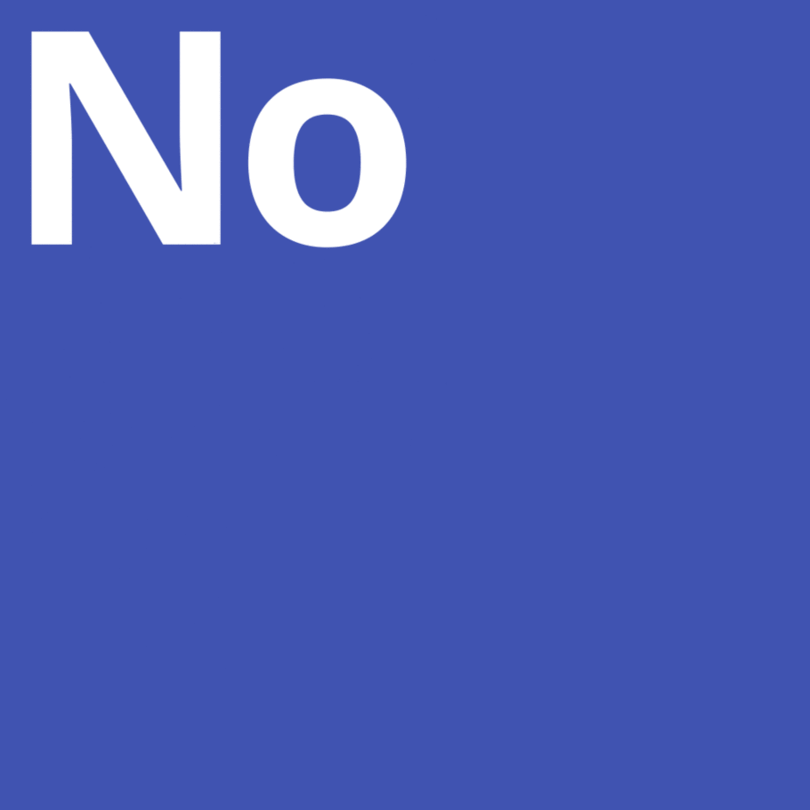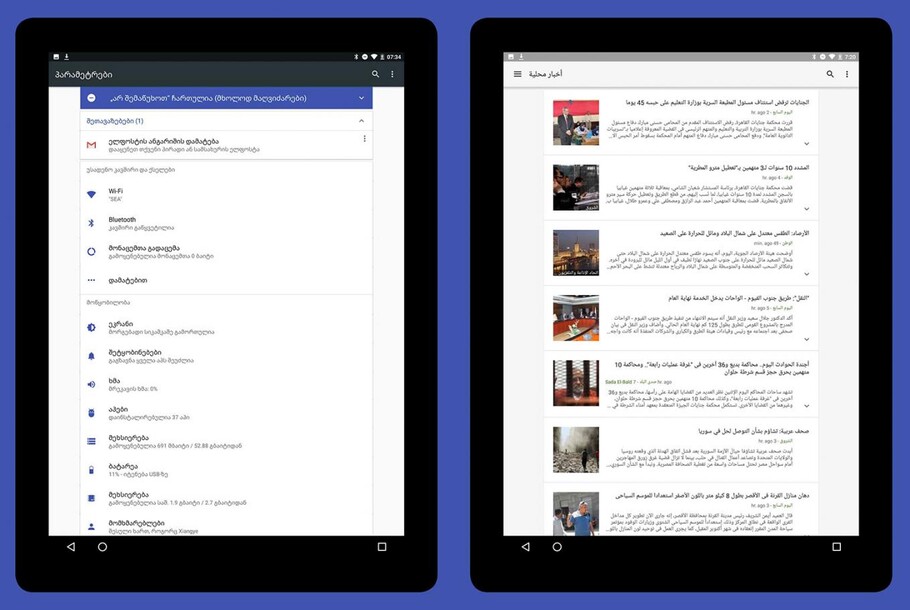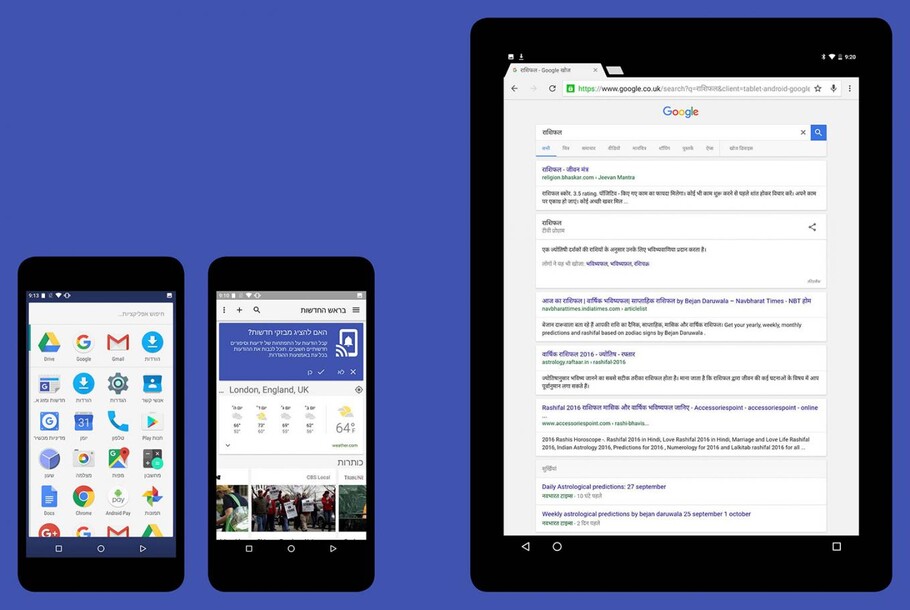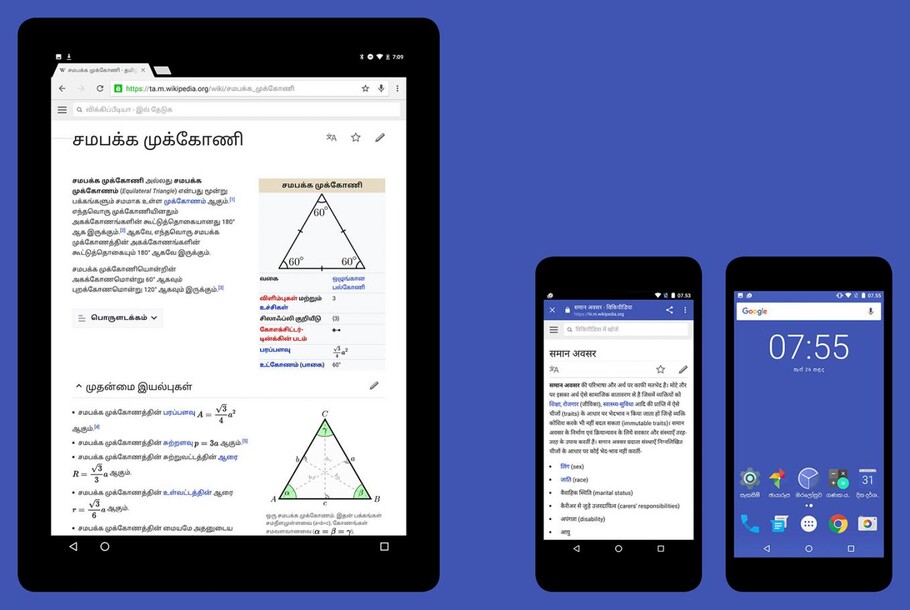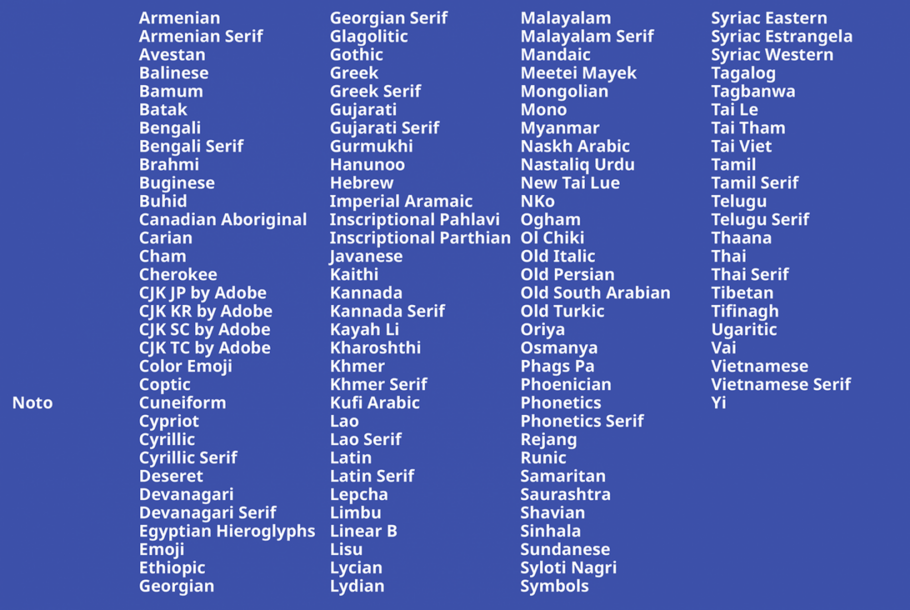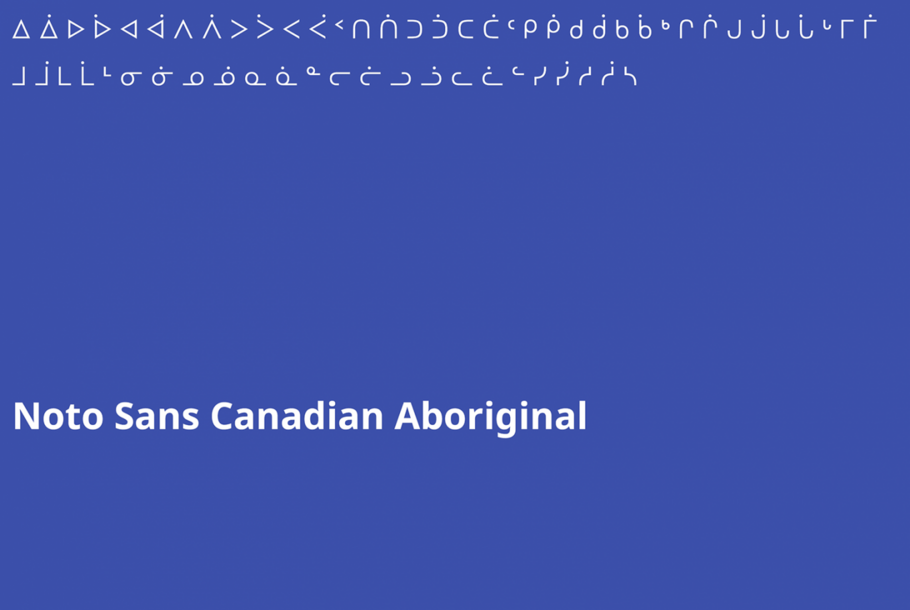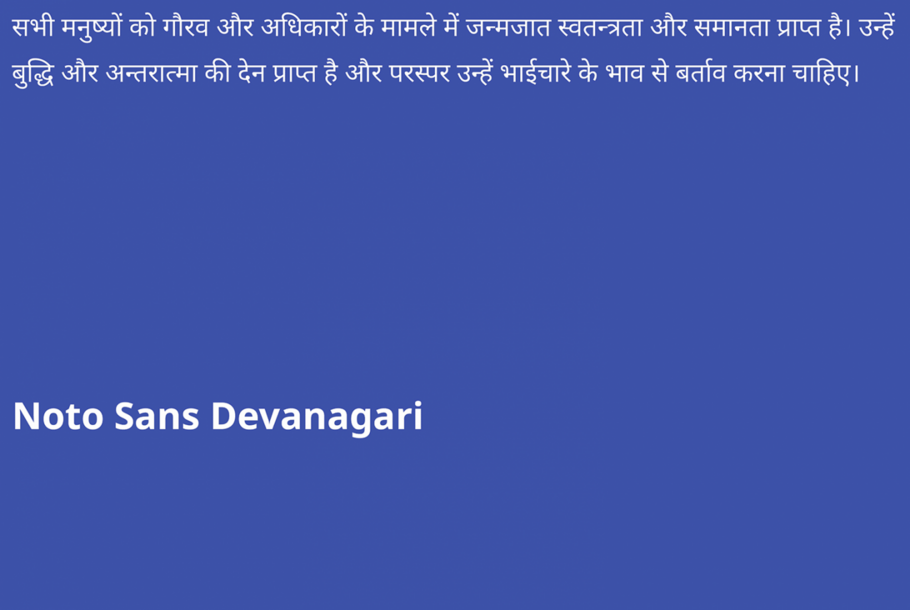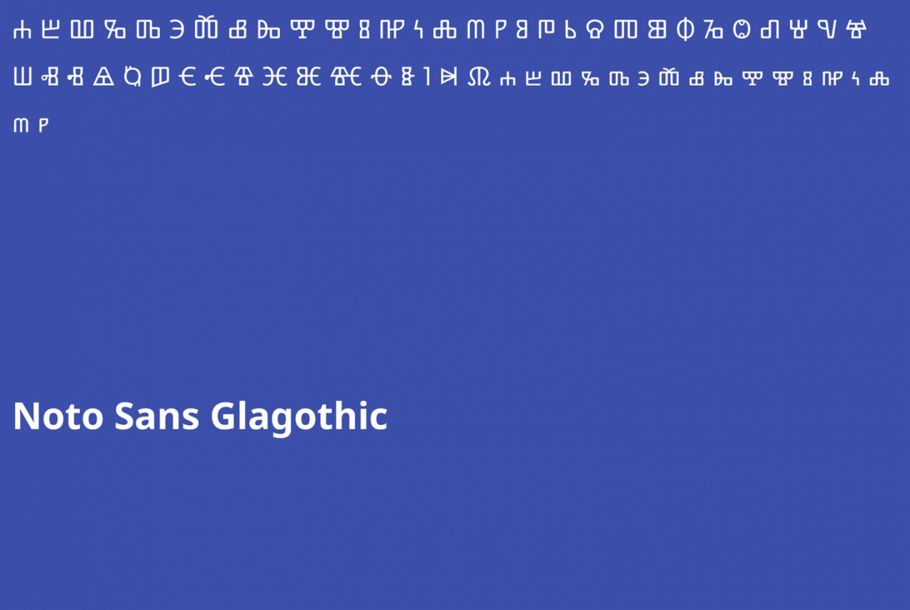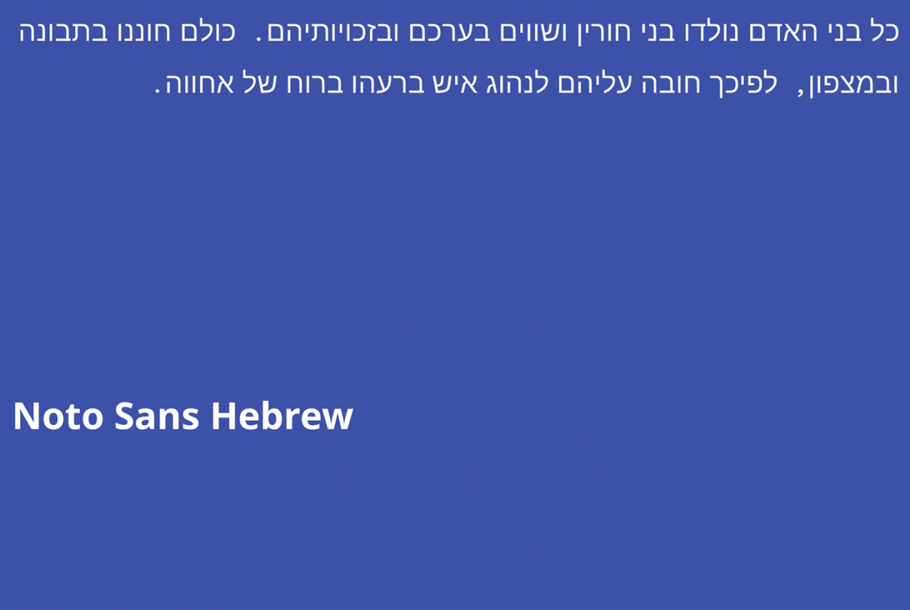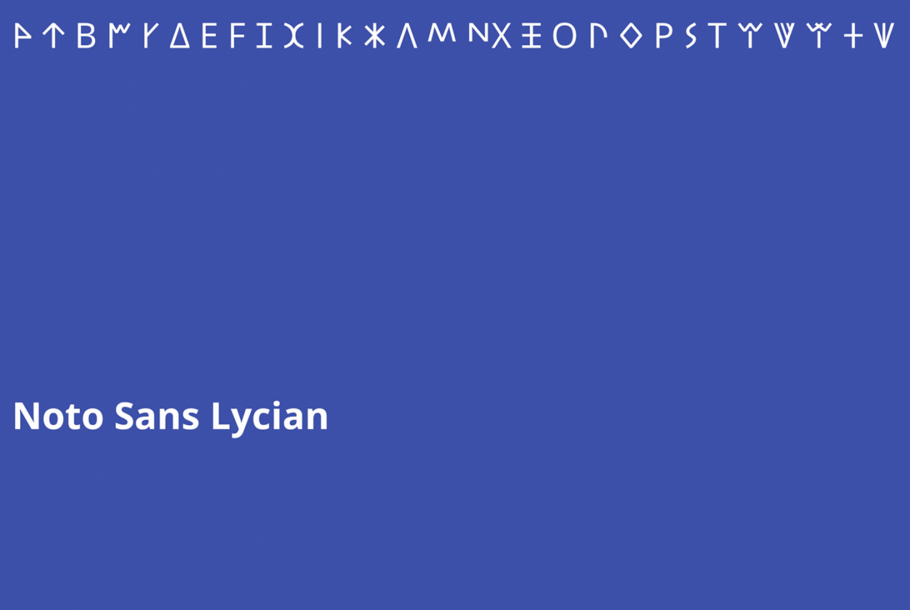
Eine Schrift – fünf Jahre in der Herstellung: Googles Noto-Font erstreckt sich über mehr als 100 Schriftsysteme, 800 Sprachen und Hunderttausende von Zeichen. Als Zusammenarbeit zwischen Google und Monotype ermöglicht Noto endlich eine lückenlose Form der Kommunikation für Milliarden von Menschen, die aus allen Ländern Welt auf digitale Inhalte zugreifen.
The brief: ‘no more tofu’
Google set Monotype a straightforward brief: “no more tofu” – tofu being the nickname for the blank boxes that are shown when a computer or site lacks font support for a particular character. To meet Google’s requirement, Monotype needed to develop one typographic family that could cover the more than 800 languages included in the Unicode Consortium standard.
Tofu ist ein alter Spitzname für die leeren Kästchen, die erscheinen, wenn der Computer ein Zeichen oder Zeichensystem nicht unterstützt.
This mammoth effort required harmonious design and development of an unprecedented number of scripts, including several rare writing systems that had never been digitized before. “It was this really phenomenal, daunting project,” says Google internationalization expert Bob Jung. “Looking back at it, I’m even surprised myself how ambitious we were.”
“Our goal for Noto has been to create fonts for our devices, but we’re also very interested in keeping information alive,” he adds. “When it comes to some of the lesser-used languages, or even the purely academic or dead languages, we think it’s really important to preserve them.”
Working with an open source design philosophy, the project involved liaising with individual designers and linguists around the world to perfect each letterform. Taking more than five years to reach its current stage, Noto required an intense and coordinated research effort, partnering with cultural experts to investigate the nuances of each style, and incorporating direct feedback from the communities using the script.
The research: cultural preservation
To give Adlam – a writing system for the Fulani language of Africa – a new identity, Monotype worked with the script’s original creators. Having direct access to the inventors of this writing system allowed the designers to incorporate stylistic choices and features that would reflect the creators’ original intentions, and bring the Fulani-speaking community the first chance to use the script digitally.
Zum ersten Mal in Monotypes mehr 100 jährigen Geschichte arbeiteten für Adlam die Schrift-Designer direkt mit den Erfindern der Skript-Schrift zusammen. Das Bild zeigt eine frühe Skizze der Adlam-Zeichen.
Traditional and contemporary elements were blended in Noto Armenian, which involved the Armenian community directly in the design process; while Tibetan monks offered expert feedback on Noto Tibetan. This vertically stacked script posed a unique challenge, with Monotype designer Toshi Omagari’s own study of the writing system supported by Buddhist scholar Shojiro Nomura, as well as the monks’ own constant manuscript study.
Die Abbildung zeigt eine Seite aus dem Skizzenbuch, das Toshi Omagari während des Studiums der kalligrafischen Traditionen der Tibeter anlegte
Noto was also an opportunity to bring a digital version of Urdu Nastaliq to life, giving greater access to the 100 million people that use it, as well as reinvigorate Ogham – an alphabet that dates back to the 4th century, and is found mostly on monuments and manuscripts. Monotype designer Steve Matteson unearthed copious images of the medieval script to create Noto Ogham“There are some characters you can only see on stones. If you don’t move them to the web, over time those stones will become sand and we’ll never be able to recover those drawings or that writing,” explains Noto product manager Xiangye Xiao.
The result: a digital language for everyone
In addition to the cultural role the typeface is finding, Noto is a digital workhorse, powering the text shown in Android and Chrome devices and spanning a huge amount of styles up to eight weights. It supports symbols, emoji and musical notation.
And the story doesn’t end there. As part of a wider effort to facilitate communication across culture, and the lofty aim of finally developing a font that supports all languages, Noto continues to be updated in line with the Unicode Consortium.